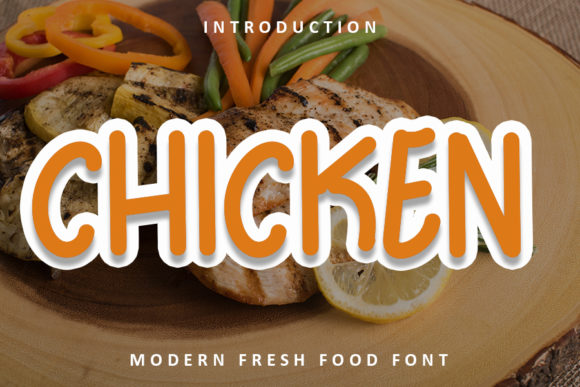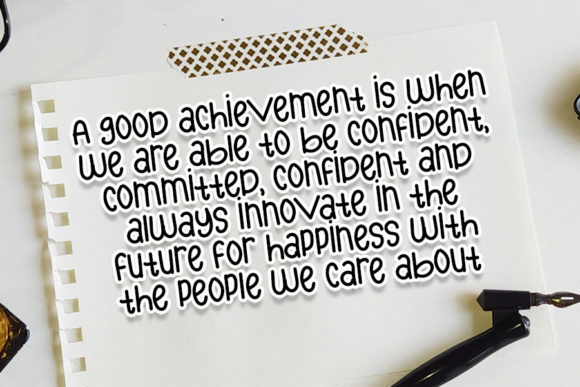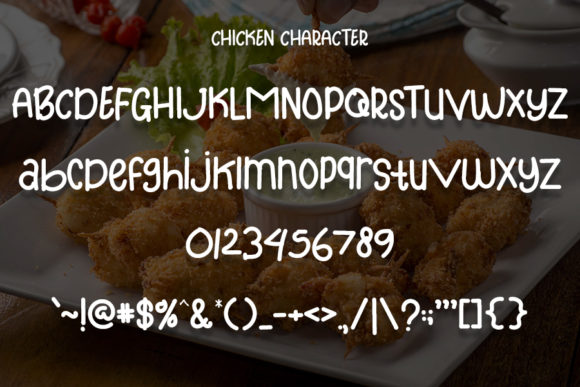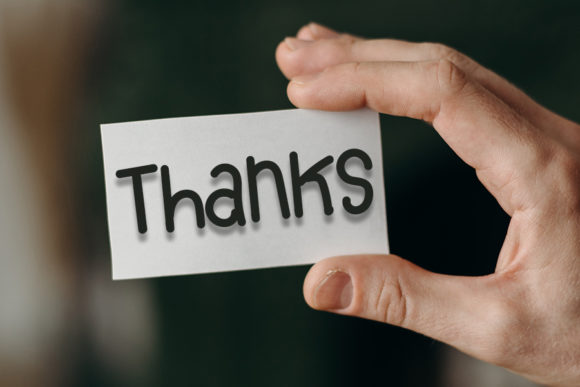
Chicken Font
About Chicken Font
Chicken is a simple, all round and clean script font. Its flexibility and jolly spirit will brighten up each of your designs. Have fun with this beautiful font and explore its endless variations.